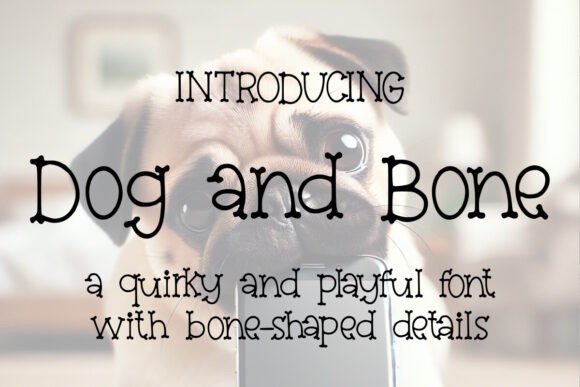
Unleash Some Fun with Dog and Bone: A Delightfully Quirky Font
Are you tired of using the same old fonts for your designs? Do you want to add a touch of personality and whimsy to your projects? Look no further than the Dog and Bone font, a delightfully quirky typeface that’s sure to turn heads. Inspired by Cockney rhyming slang, where “dog and bone” means “phone,” this font combines creative flair with a playful twist.
The Story Behind Dog and Bone Font
The Dog and Bone font is a unique and charming typeface that’s inspired by the colorful world of Cockney rhyming slang. For those who may not be familiar, Cockney rhyming slang is a form of slang that originated in the East End of London, where phrases are used to replace words with rhyming phrases. In the case of “dog and bone,” it rhymes with “phone,” making it a clever and catchy name for a font.
The font itself is designed to evoke the playful and cheeky spirit of Cockney rhyming slang. With its irregular shapes and bouncy lines, Dog and Bone is the perfect font for adding a touch of whimsy to any design. Whether you’re working on a project for a pet lover, a playful brand, or just want to add some personality to your work, this font is sure to deliver.
What Makes Dog and Bone Font So Special?
So, what sets the Dog and Bone font apart from other typefaces? Here are just a few reasons why this font is sure to become a favorite:
- Unique and Quirky Design: The Dog and Bone font has a one-of-a-kind design that’s sure to grab attention. Its irregular shapes and playful lines make it a standout in any design.
- Inspired by Cockney Rhyming Slang: The font’s inspiration from Cockney rhyming slang adds an extra layer of interest and meaning to the design.
- Perfect for Pet Lovers: With its fun and playful design, the Dog and Bone font is a natural fit for pet-related projects or brands.
- Great for Playful Designs: Whether you’re working on a project for a brand that wants to appear fun and playful or just want to add some personality to your work, this font is a great choice.
How to Use Dog and Bone Font in Your Designs
Now that you’re excited about the Dog and Bone font, here are some tips on how to use it in your designs:
- Pair it with a Neutral Font: To really make the Dog and Bone font pop, try pairing it with a neutral font for body text. This will create a nice contrast and make your design stand out.
- Use it for Headlines and Titles: The Dog and Bone font is perfect for headlines and titles, where you want to grab attention and add some personality to your design.
- Add Some Color: To really make your design pop, try adding some bright and bold colors to match the playful spirit of the font.
- Experiment with Different Sizes: Don’t be afraid to experiment with different sizes and arrangements of the font to create a unique and eye-catching design.
The Benefits of Using Dog and Bone Font
So, why should you choose the Dog and Bone font for your next project? Here are just a few benefits of using this unique and playful typeface:
- Adds Personality to Your Design: The Dog and Bone font is a great way to add some personality and whimsy to your designs, making them stand out from the crowd.
- Perfect for Creative Projects: Whether you’re working on a project for a brand that wants to appear creative and playful or just want to add some interest to your work, this font is a great choice.
- Great for Pet-Related Projects: With its inspiration from Cockney rhyming slang and playful design, the Dog and Bone font is a natural fit for pet-related projects or brands.
- Easy to Read: Despite its playful design, the Dog and Bone font is still easy to read, making it a great choice for headlines and titles.
In conclusion, the Dog and Bone font is a unique and playful typeface that’s sure to add some personality and whimsy to your designs. With its inspiration from Cockney rhyming slang and quirky design, this font is perfect for pet lovers, playful brands, and anyone who enjoys a good laugh. So why not give it a try and see how it can add some fun and creativity to your next project?
FAQs About Dog and Bone Font
- Q: What is the Dog and Bone font inspired by?
A: The Dog and Bone font is inspired by Cockney rhyming slang, where “dog and bone” means “phone.”
- Q: What makes the Dog and Bone font so special?
A: The Dog and Bone font has a unique and quirky design that’s inspired by Cockney rhyming slang, making it a standout in any design.
- Q: How can I use the Dog and Bone font in my designs?
A: The Dog and Bone font is perfect for headlines and titles, where you want to grab attention and add some personality to your design. Try pairing it with a neutral font for body text and adding some bright and bold colors to really make it pop.